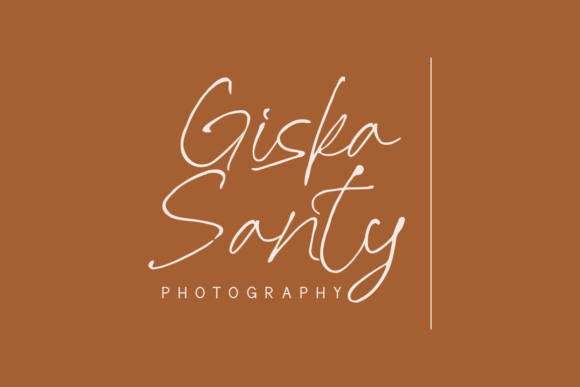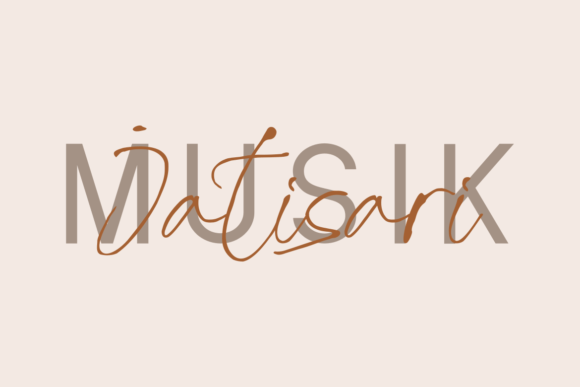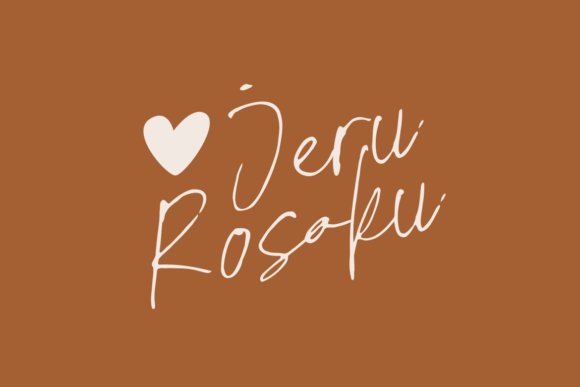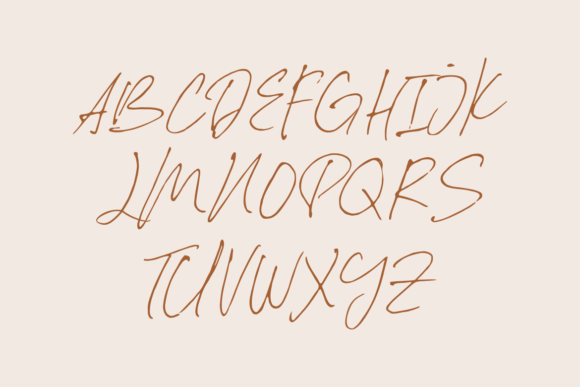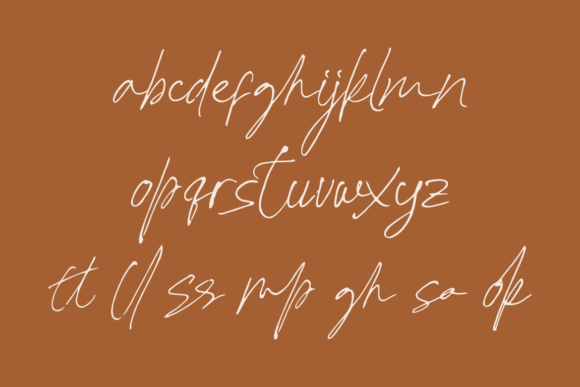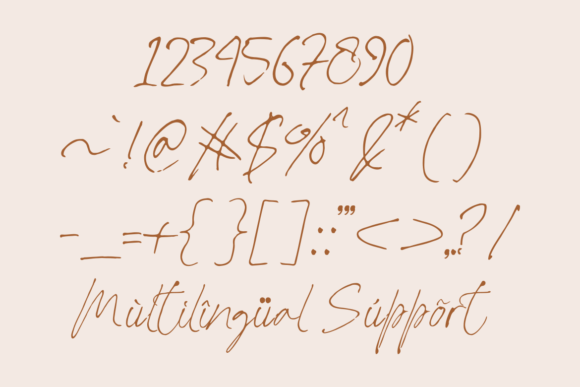
Introduction to Sallim Besok Font
Sallim Besok is a delicate, elegant, and flowing handwritten font.
It has beautiful and well-balanced characters and as a result, it matches a wide pool of designs Add it to your most creative ideas and notice how it makes them come alive.
Key Features of Sallim Besok Font
Why Choose Sallim Besok Font?
Sallim Besok Font offers exceptional quality and versatility, making it a valuable addition to your design toolkit. Whether you’re creating for personal projects or commercial use, Sallim Besok Font delivers professional results.